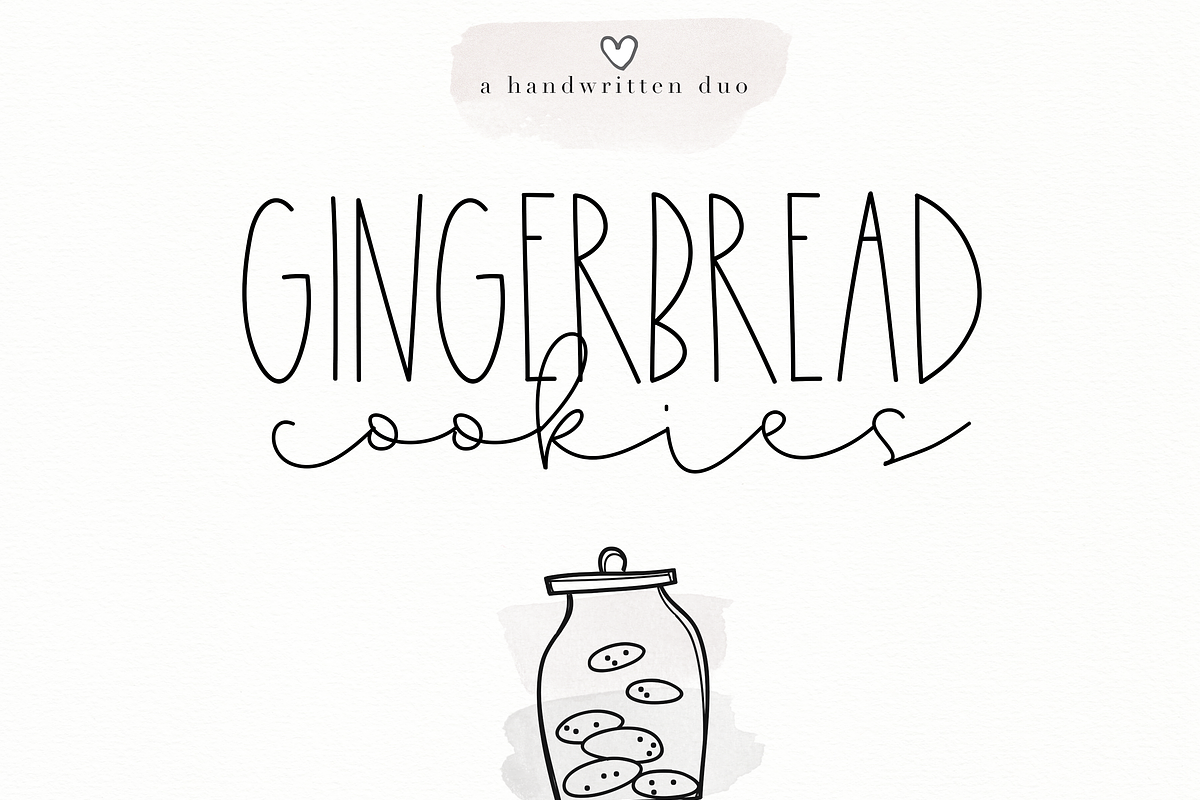
Gingerbread Cookies - A Font Duo Free Download
Gingerbread Cookies - A Font Duo Free Download is a delightful and playful typeface pairing designed to bring charm and whimsy to your designs. This duo includes a fun, handwritten script font paired with a clean, simple sans-serif font, making it perfect for a variety of creative projects. Whether you're working on holiday-themed designs, branding, invitations, or social media content, Gingerbread Cookies - A Font Duo Free Download offers a warm, inviting style. The script font adds personality and flair, while the sans-serif font brings balance and clarity. Explore its sweet, cozy charm in personal projects before purchasing a commercial license and create heartwarming designs with this beautifully crafted font duo.